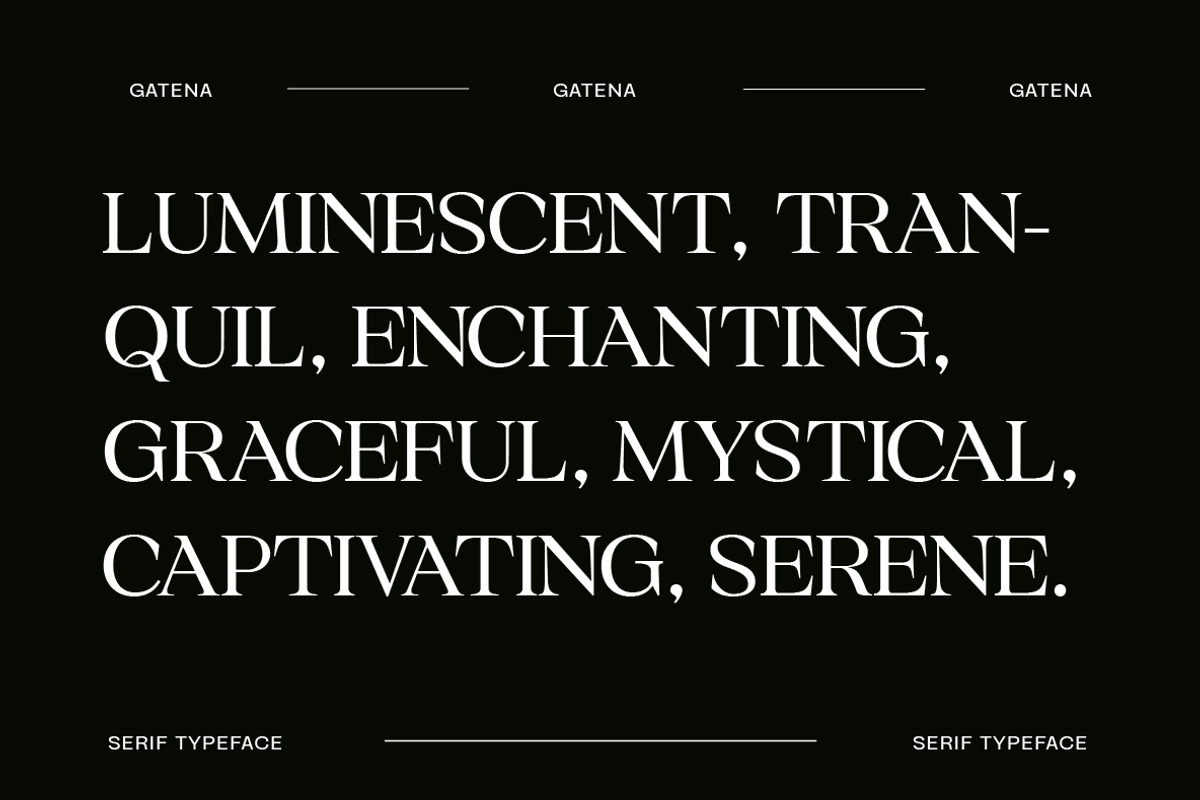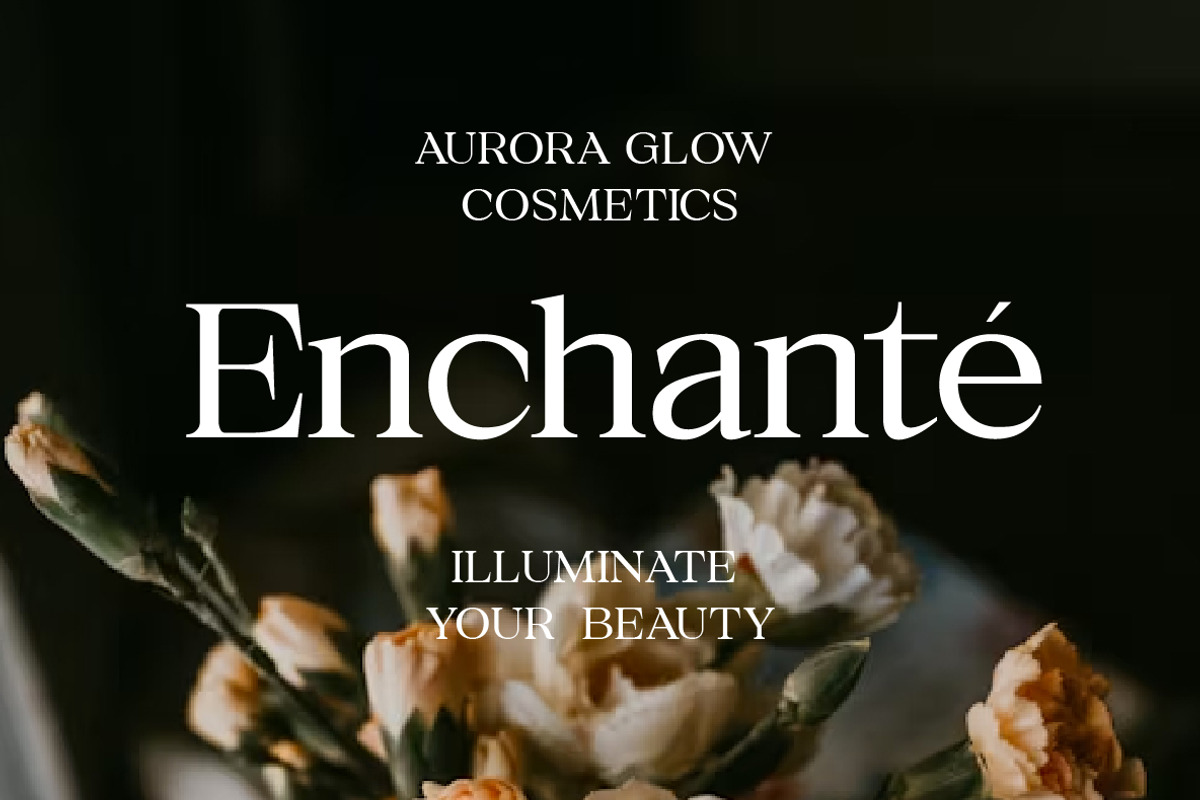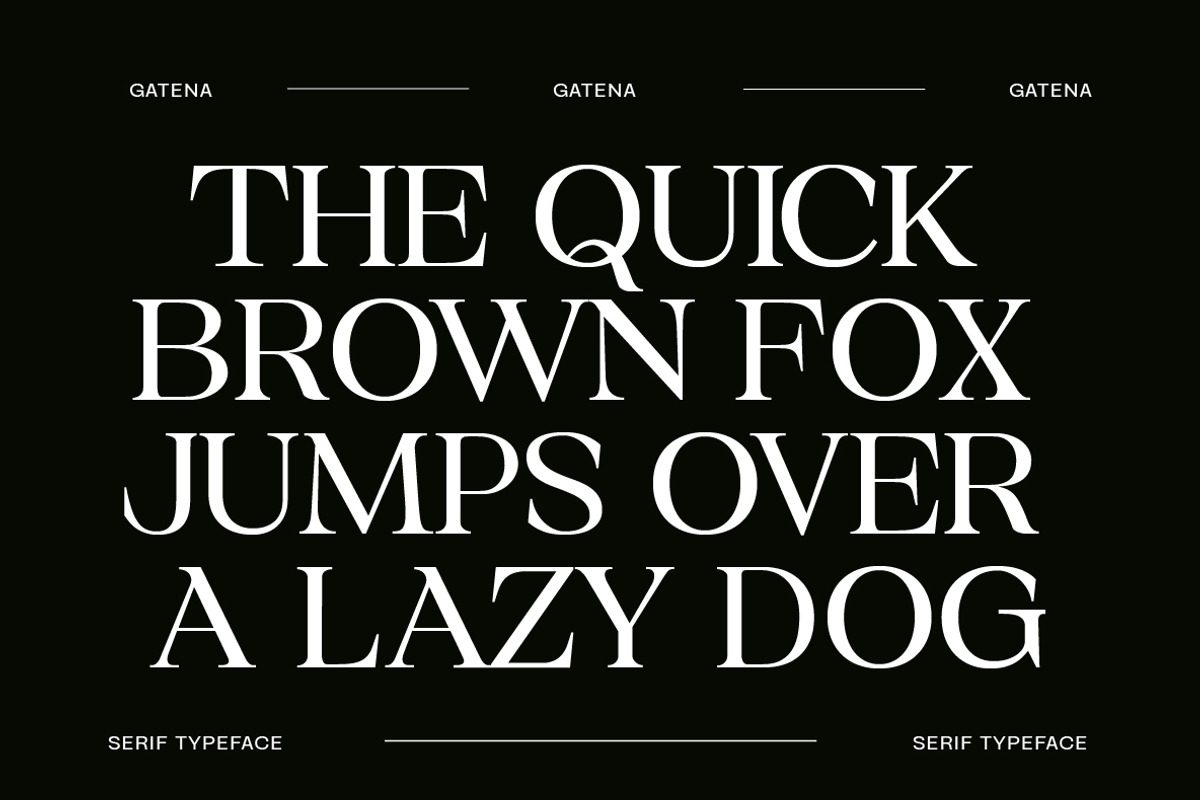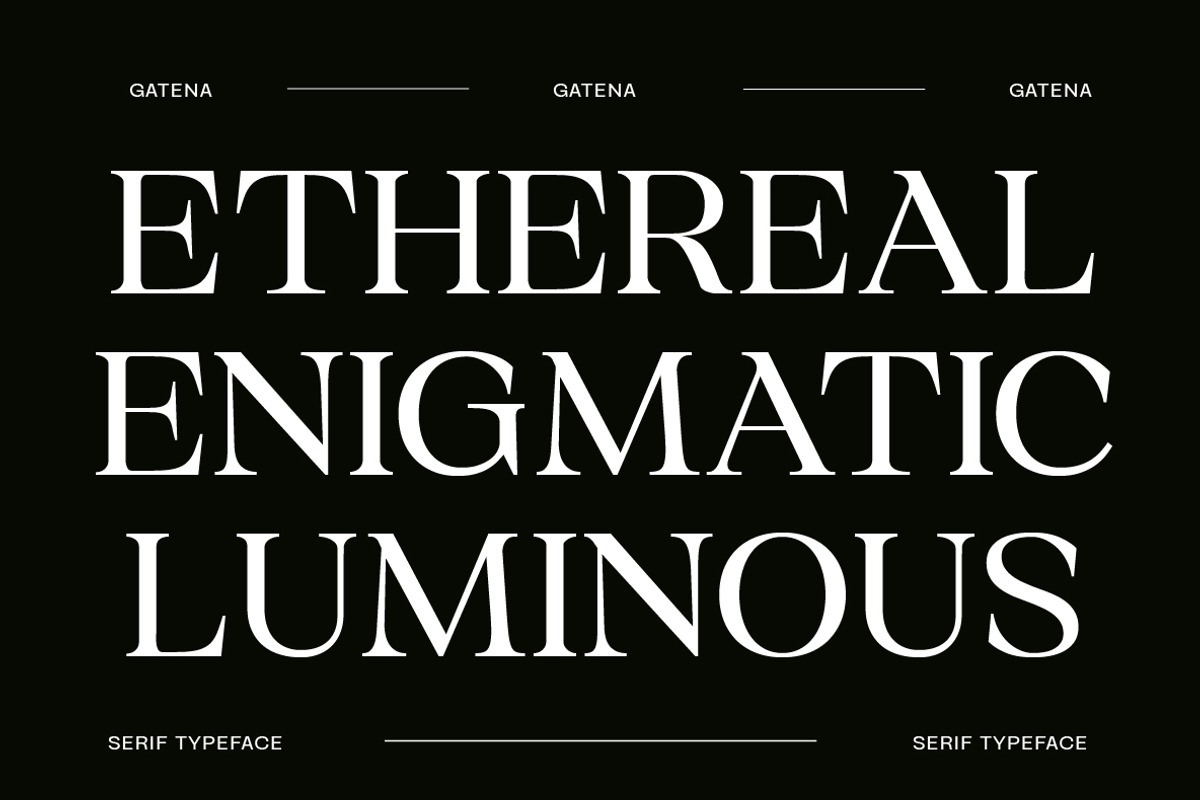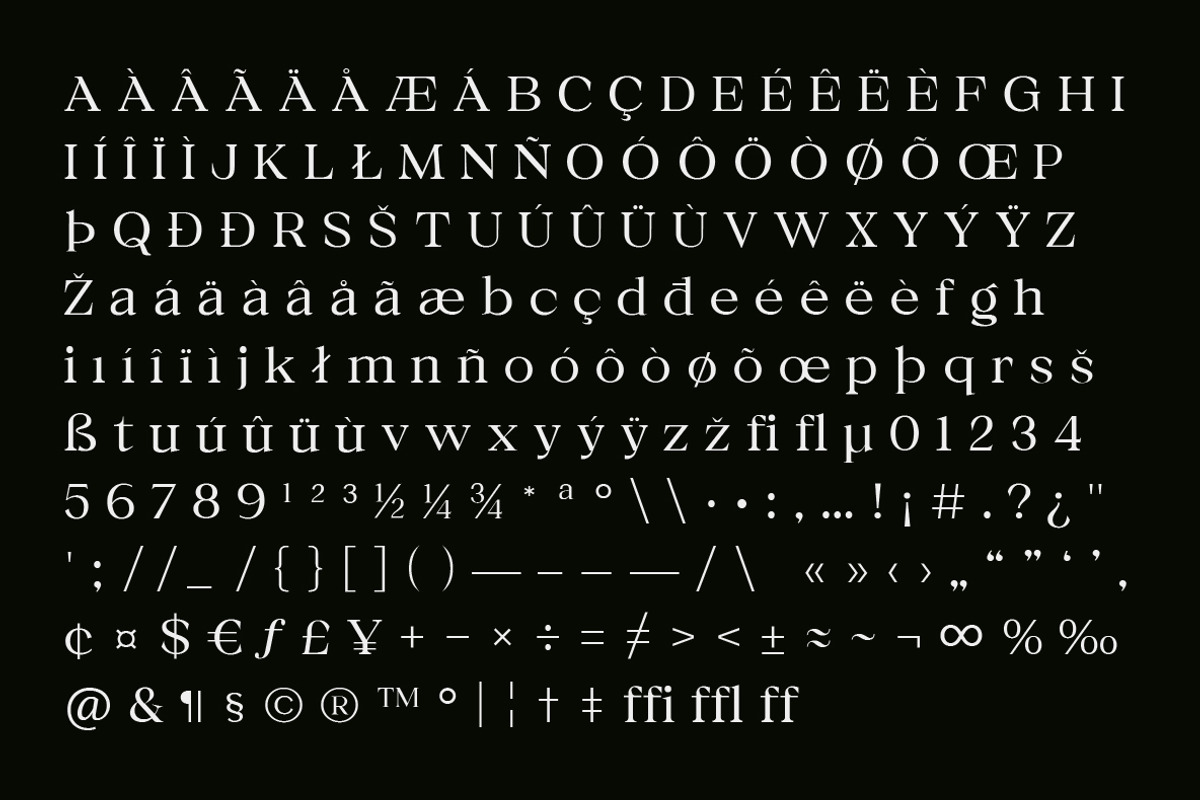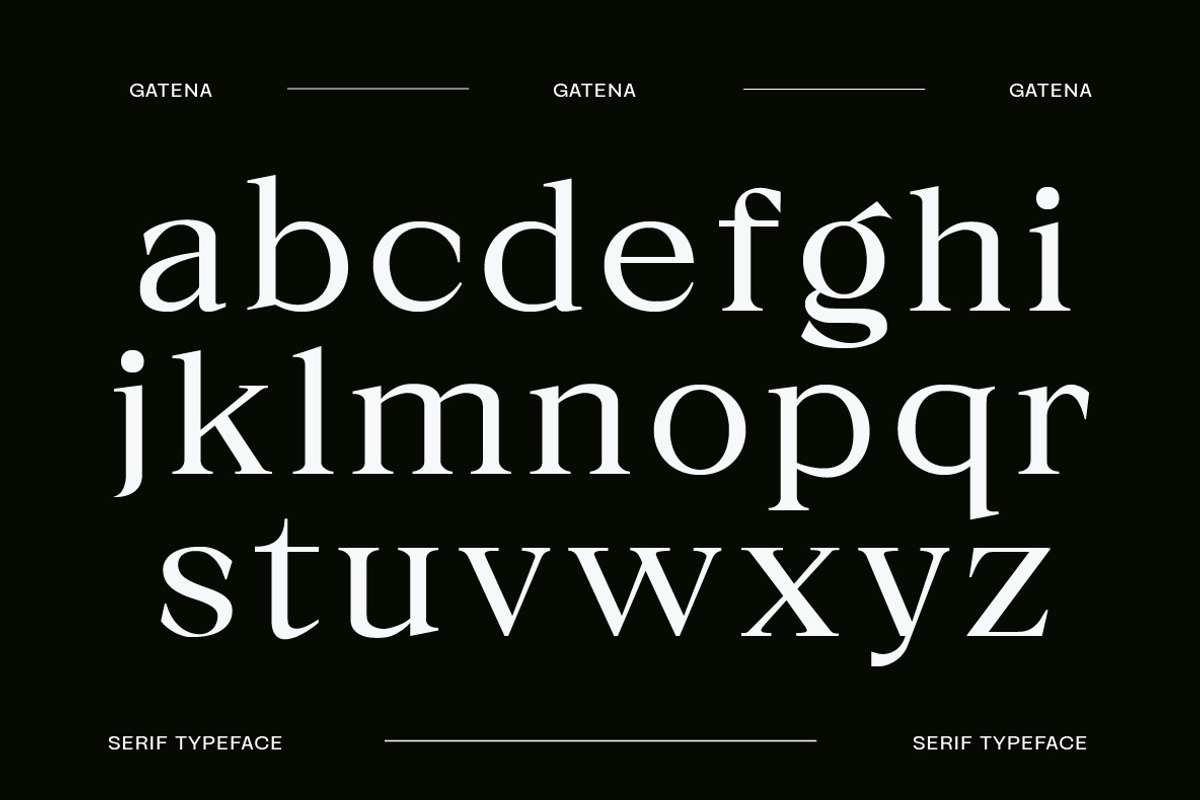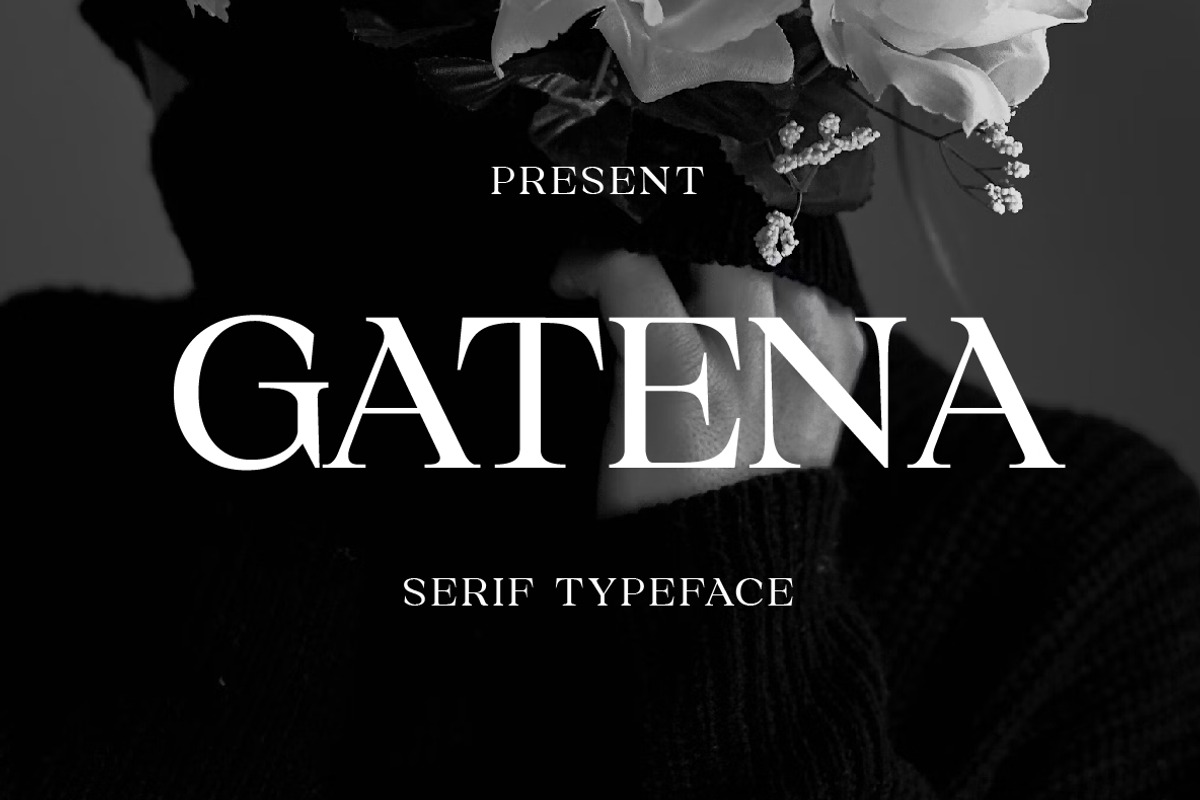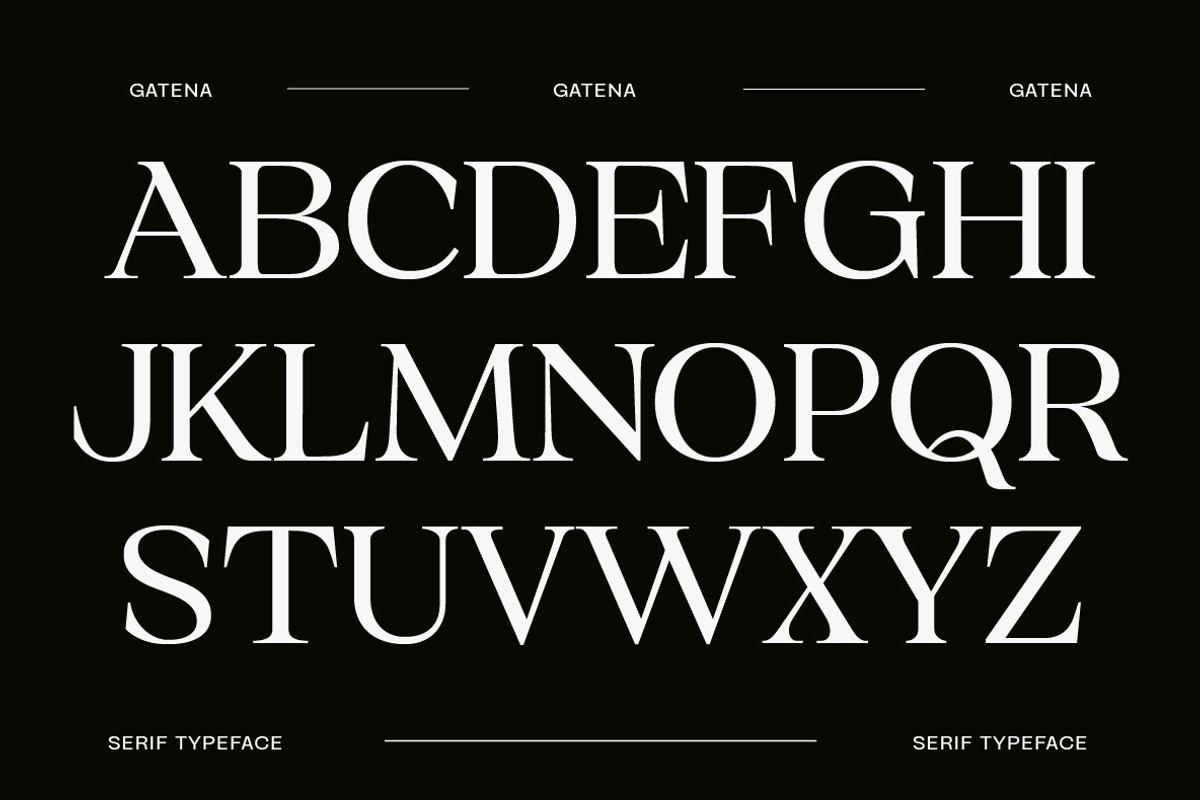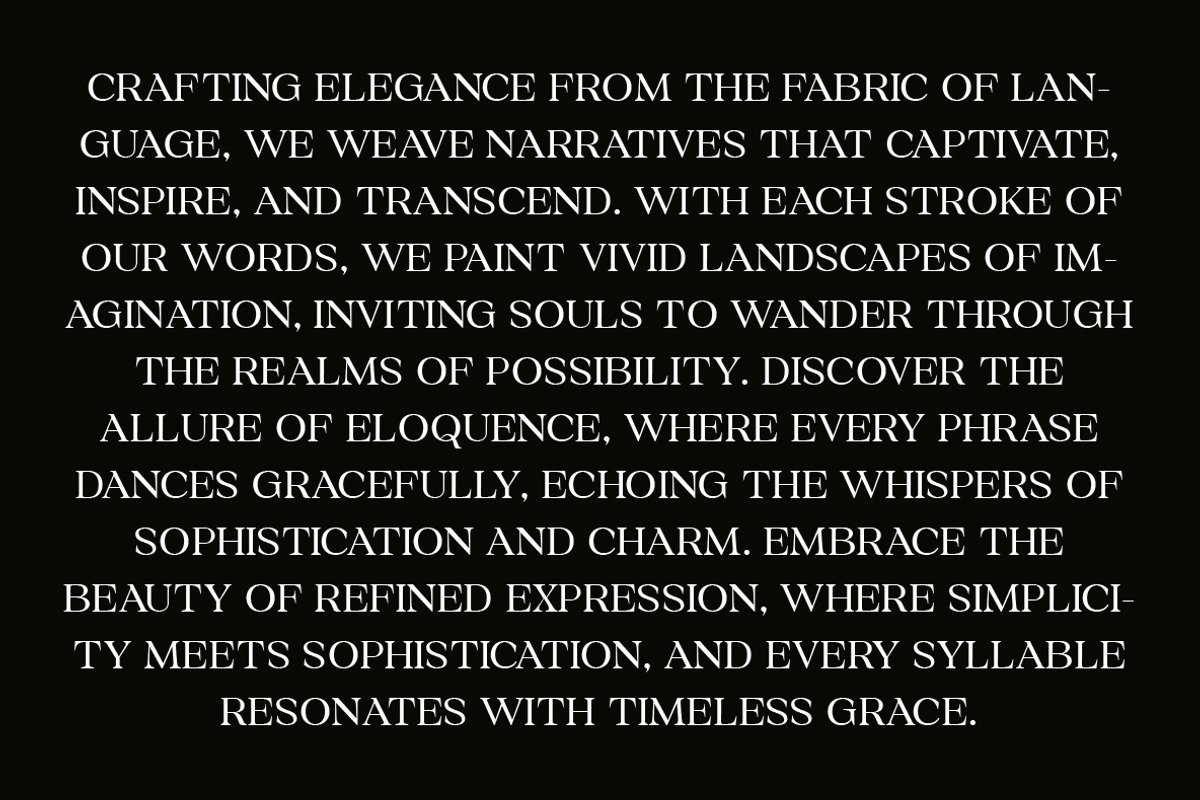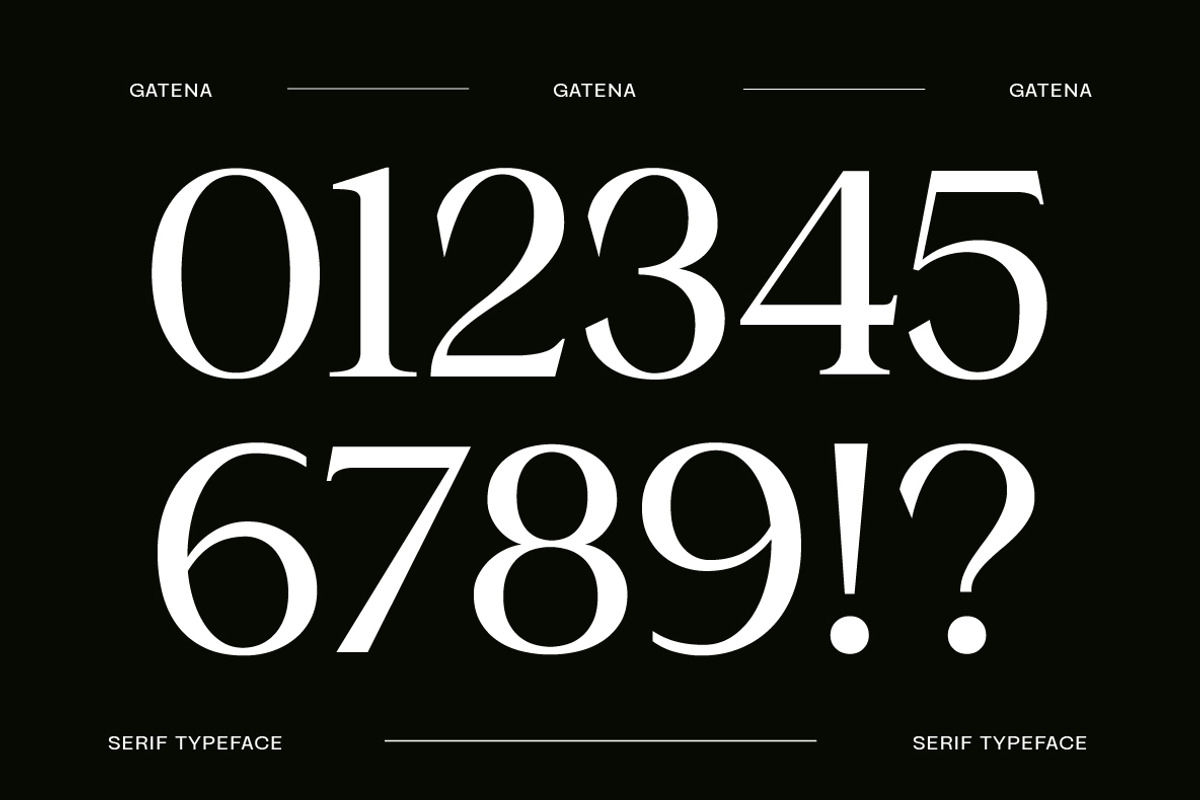
Gatena Serif Modern
Gatena Serif Modern Classic font is a harmonious blend of classic luxury and modern elegance. With its elegant and well-proportioned design, this font is suitable for design projects that require a touch of luxury and boldness. Each letter is carefully carved, creating an impression of perfection and elegance.
Gatena Serif Modern Classic features the subtle yet strong characteristics of serifs, adding a touch of elegance and boldness to every design. Its clean, well-proportioned lines ensure clarity and smooth reading, while the proportions of the letters give it a classy and authoritative feel.
This font is very suitable for use in designs that prioritize a luxurious and classic impression, such as wedding invitations, luxury promotional materials, or company logos that want an elegant and classy image. With Gatena Serif Modern Classic, you can bring an unforgettable touch of luxury and elegance to each of your design works.